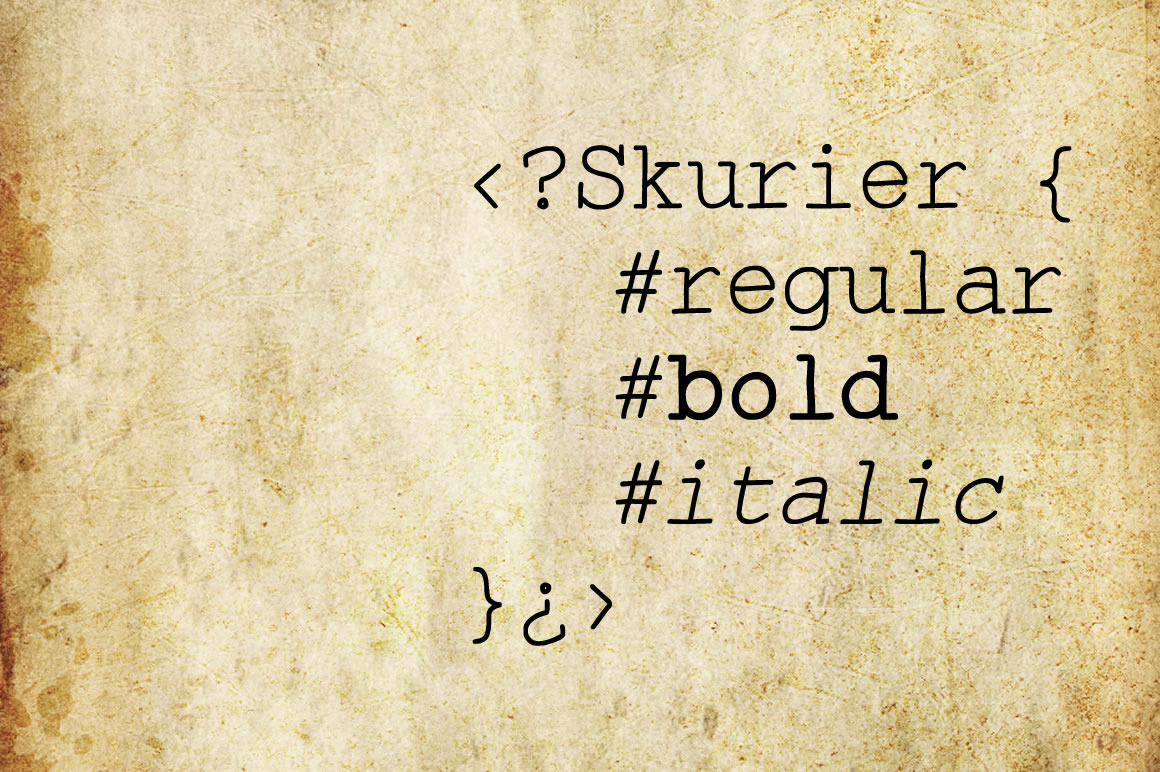
Skurier - 3 fonts
Skurier is a hand-drawn font inspired by monospaced fonts like Courier.
Language support includes Western, Central and Eastern European character sets, as well as Baltic and Turkish languages.